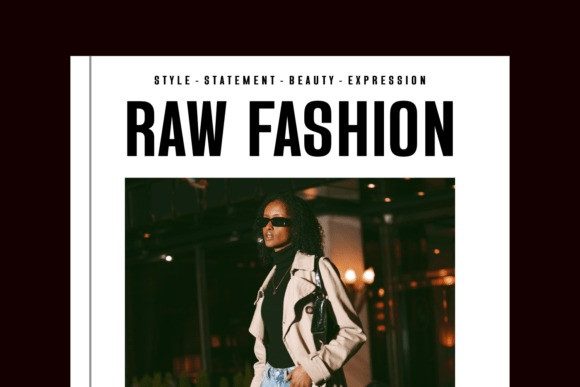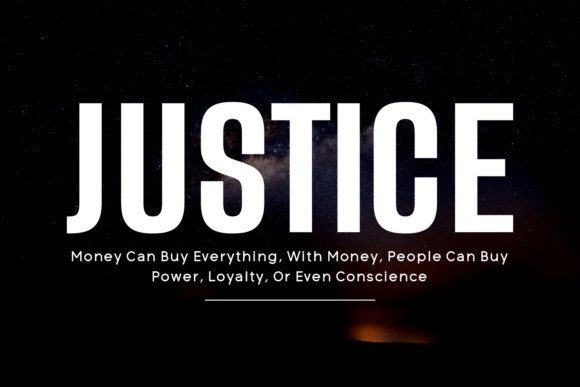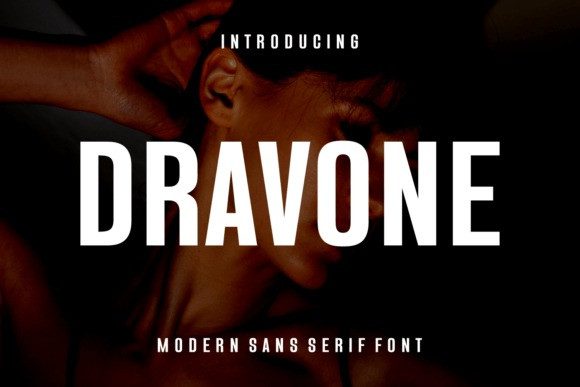
Dravone Font is the epitome of sleek minimalism elevated with a touch of contemporary energy. This typeface reigns supreme with a dominant personality that leaves an indelible impact. Crafted for the bold aesthetics, Dravone Font is an embodiment of avant-garde design, authoritative in its own monochromatic realm. It carries a Sans Serif touch that adds a dash of urban chic to any presentation. With a primary purpose of making headlines impactful, Dravone Font turns the ordinary into a limelight-stealing narrative. Easily adaptable to fashion spreads or glossy magazines, this font carries a luxurious feel and an unyielding air of professionalism, making it a perfect fit for an editorial style. Pioneers of graphic and print design will find Dravone Font’s refined simplicity a charming addition to their projects. Its understated elegance is its most captivating feature, effortlessly communicating high-end design prowess. With Dravone Font, your brand’s visual identity or print aesthetics get a unique, captivating glow that is impossible to forget. Your bold and creative ideas, whether for posters or fashion branding, gain an unforgettable edge with this font, constructed for maximum visual impact. When it comes to contemporary, clean fonts that can stylishly command attention, Dravone Font is a uniquely brilliant blend of contrasting yet complementary attributes.